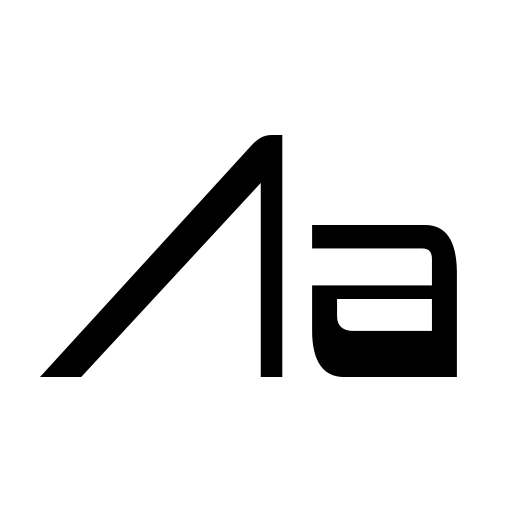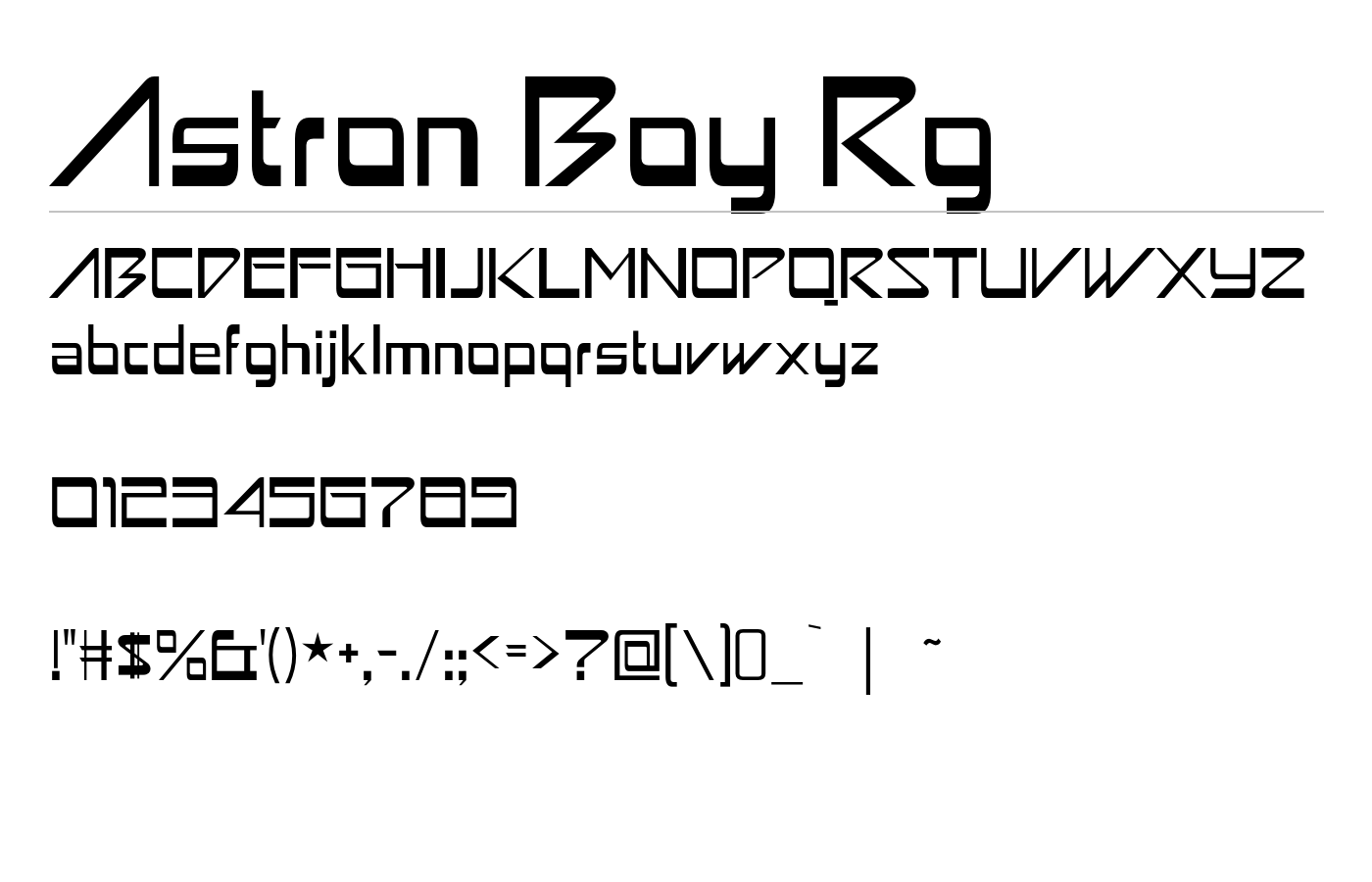
Astron Boy is a futuristic, geometric sans serif font with a sleek, angular design that conveys a modern and tech-savvy personality. Its sharp lines, narrow width, and uniform stroke weight give it a structured, digital feel, making it perfect for projects related to technology, gaming, sci-fi, and innovative branding. This font works best in headlines, logos, and posters where a strong, distinctive visual impact is needed.
Astron Boy Font
About Astron Boy Font
| Font family | Astron Boy Font |
| Designer | Raymond Larabie |